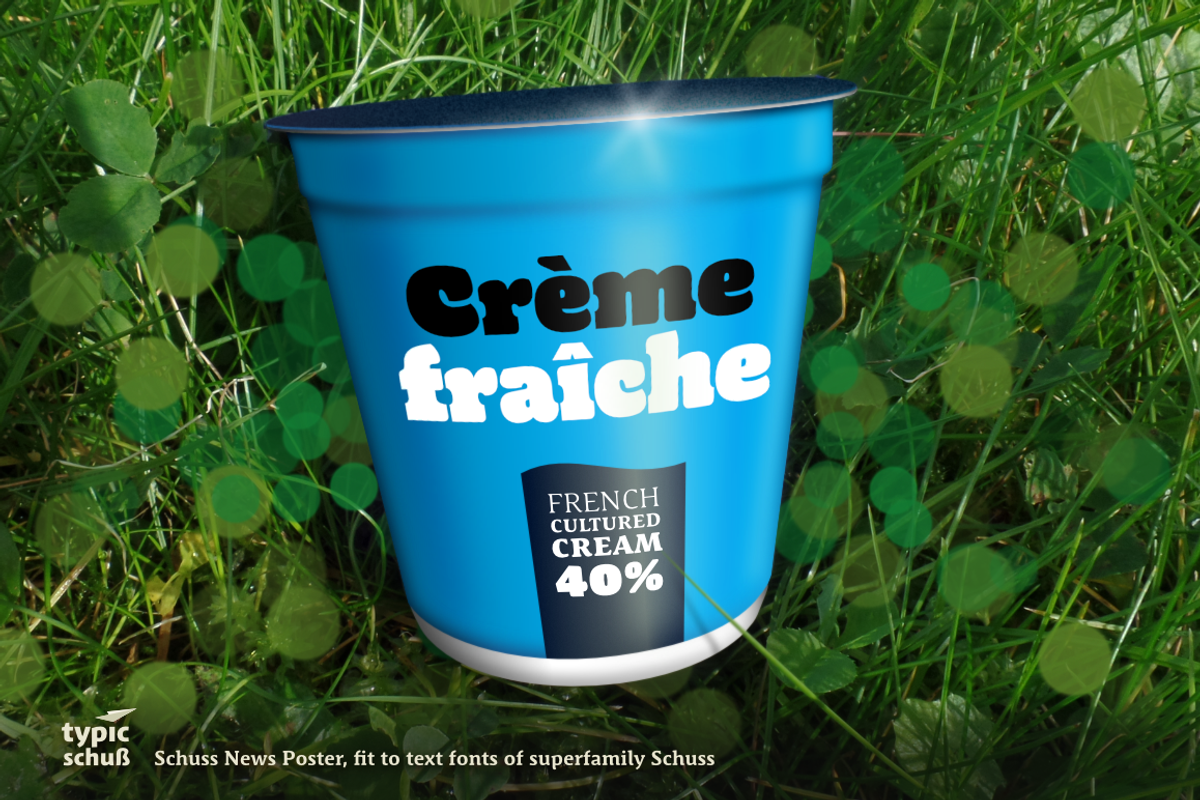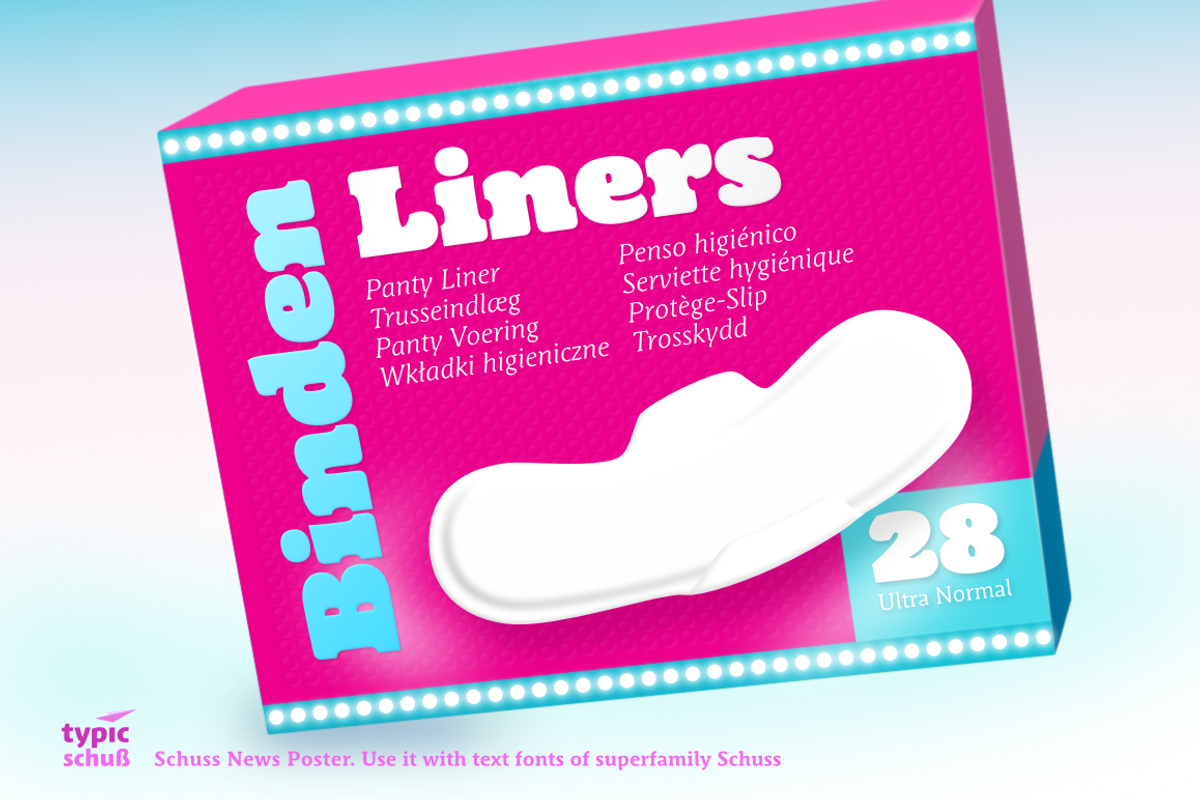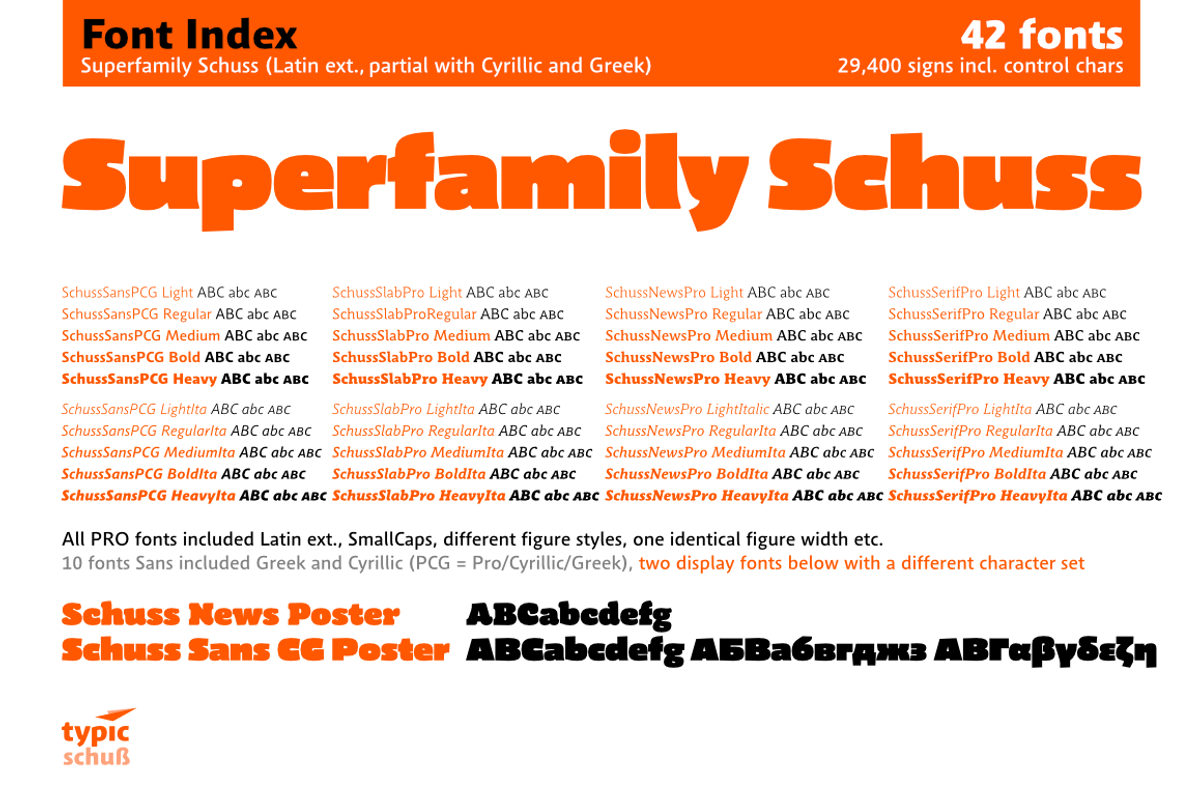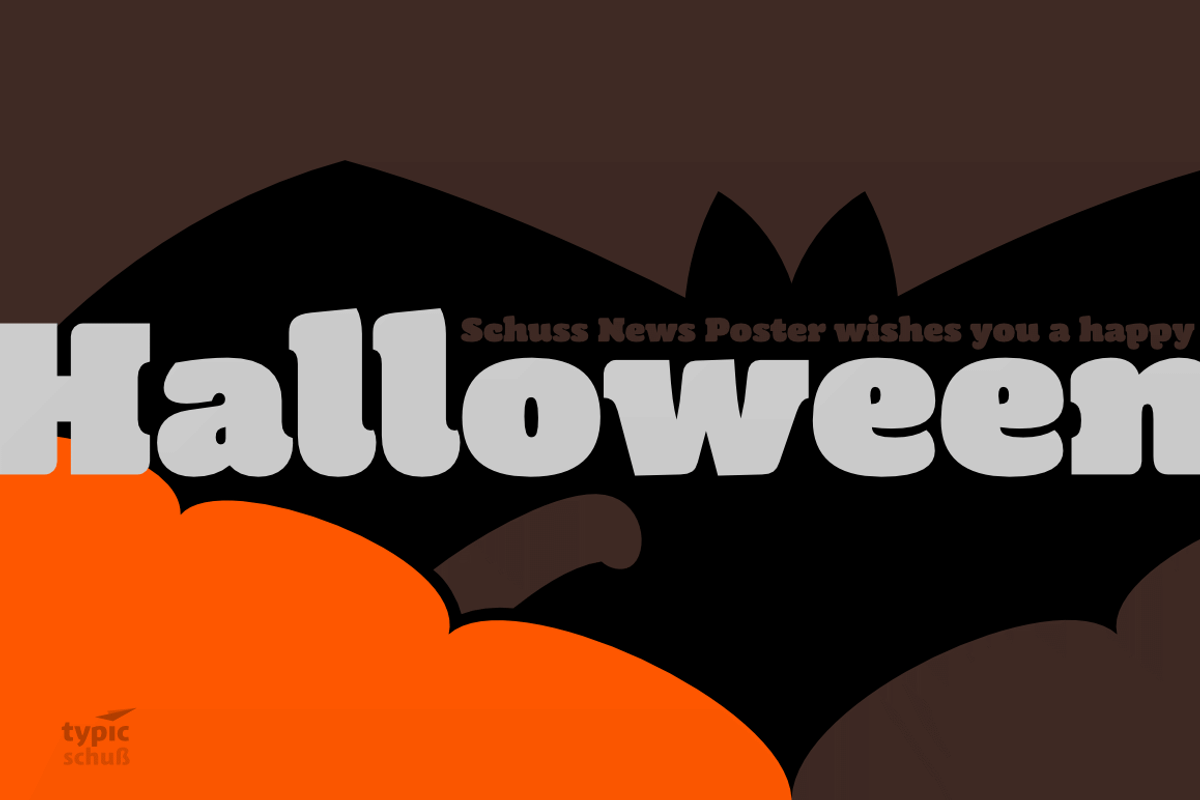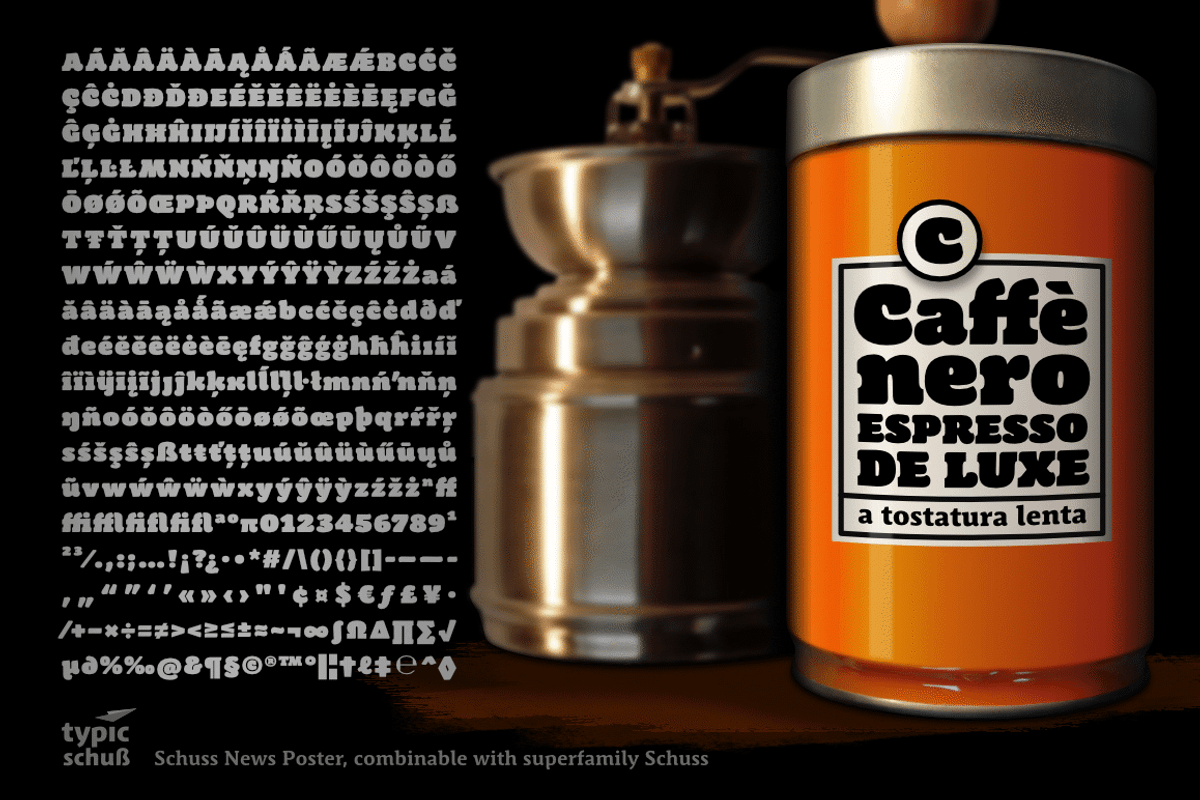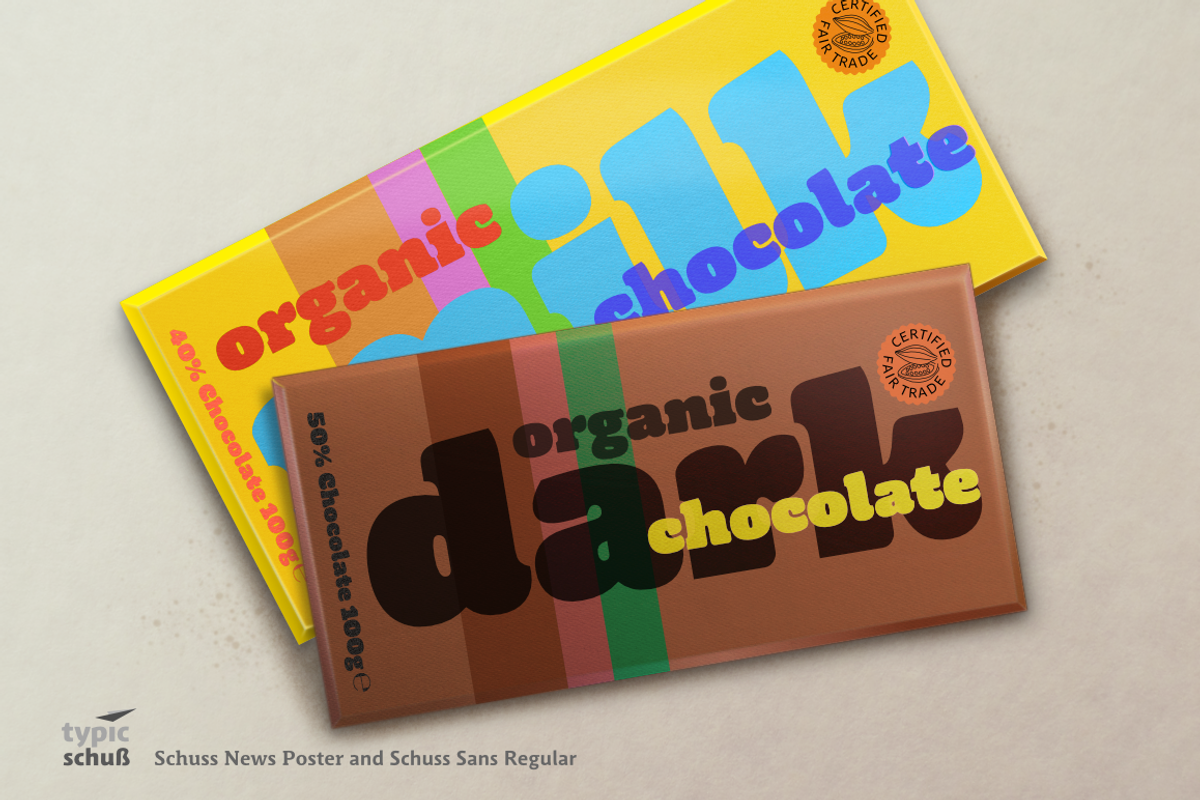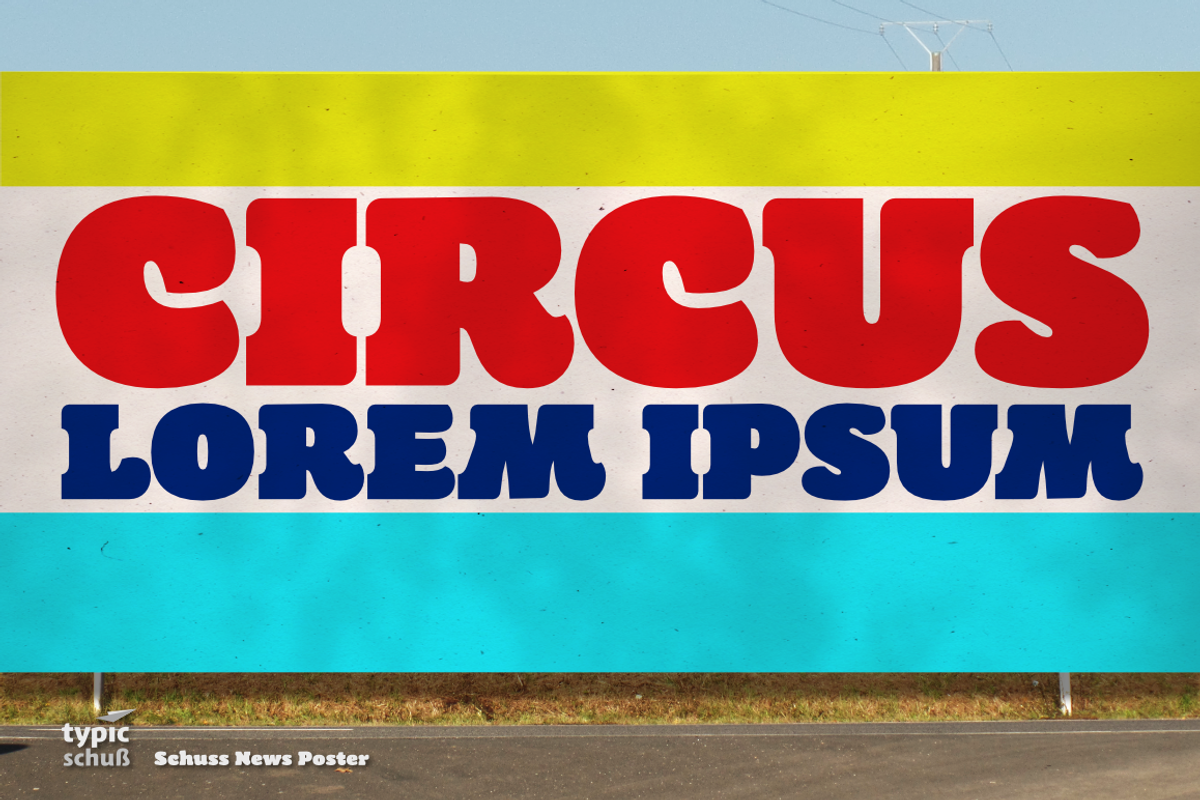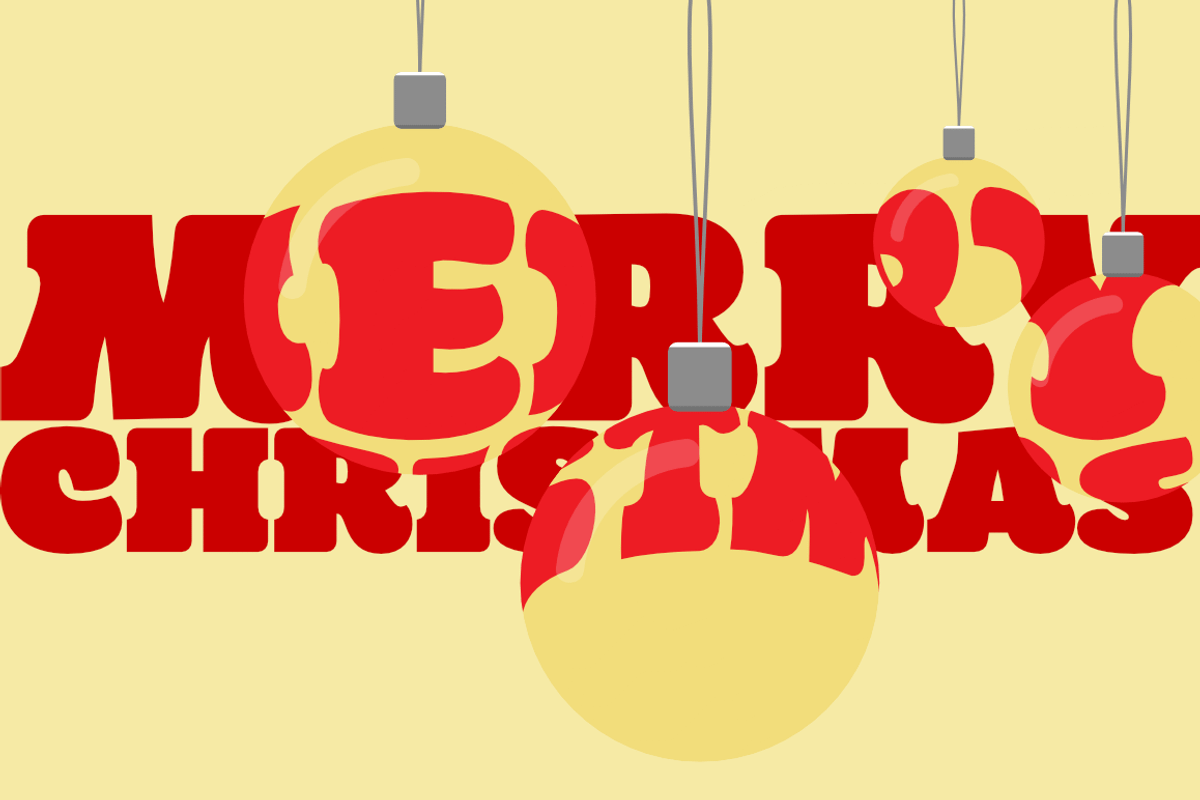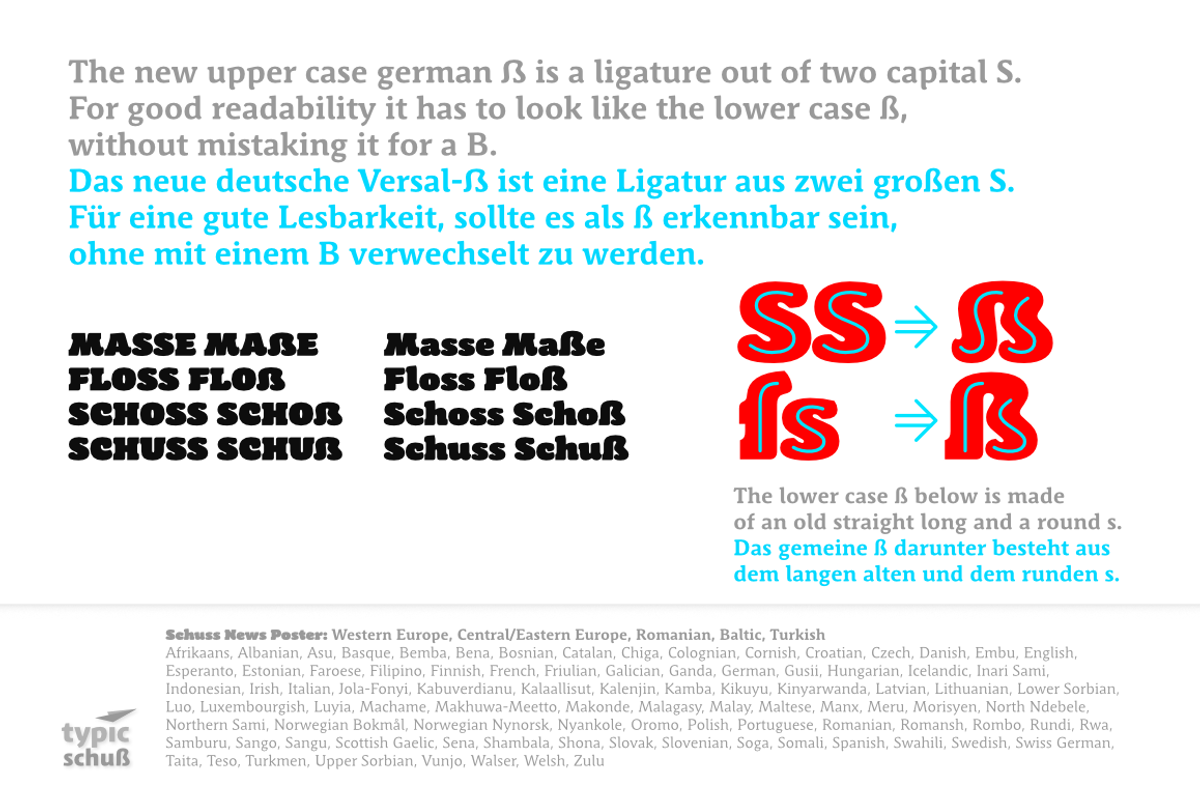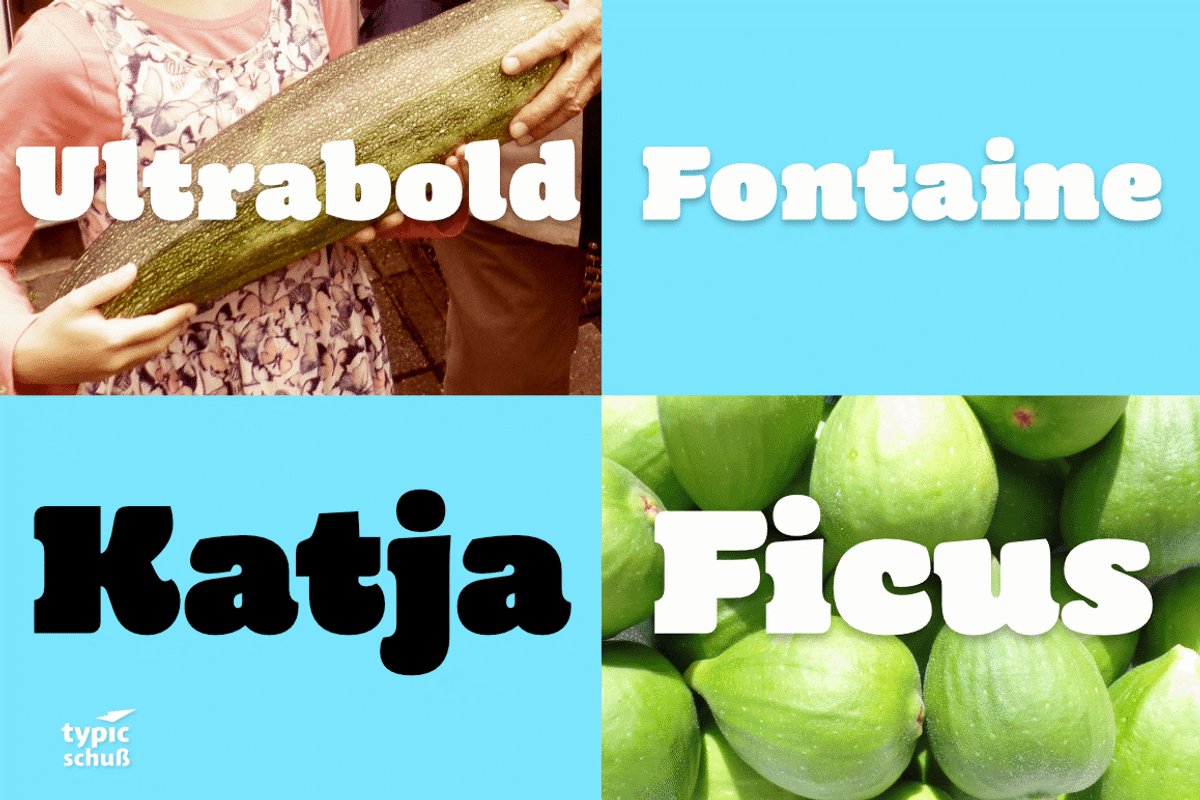
Schuss News Poster 1 upright OTF Font (no italic, no additional figures, no tabular figures, no small Caps, some different heights as the other Schuss text fonts, to become a better poster font).
Latin extended.
This is another extra heavy headline font (display or poster font) to the Schuss superfamily (Sans, Slab, News and Serif) in the style of the News. There is a different character set to the other styles. It is not drawn for small text sizes. Comparable with the other fat font SchussSansCGPoster but without Greek and Cyrillic.
Ligatures: fi, fl, ff, ffi, ffl No special OpenType features, but with a handmade complex display kerning with more than 3800 pairs.